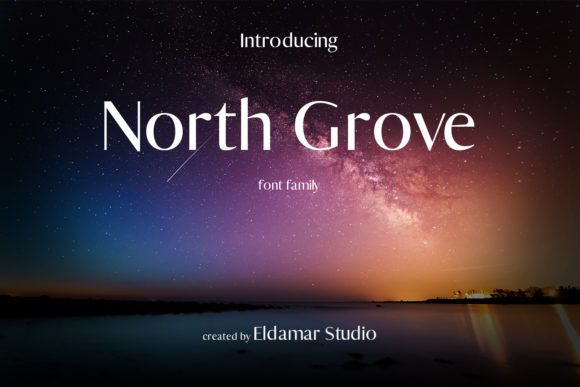
Introducing North Grove Font: The Epitome of Minimalistic Design
Adorn your creative visions with the North Grove Font, a sans serif masterpiece crafted by DmDesignsStoreArt. With its clean lines, slender strokes, and smooth curves, North Grove exudes an air of sophistication and minimalism that's sure to captivate your audience.
Step into a world of sleek aesthetics and understated elegance as you unveil the beauty of North Grove. Its delicate structure and airy feel lend a sense of lightness and grace to every design it touches. Whether you're creating a minimalist logo, a captivating social media post, or an eye-catching website, North Grove is your perfect companion.
Unlock a Universe of Creative Possibilities
With North Grove at your fingertips, you'll unlock a boundless realm of creative possibilities. Let your imagination soar as you explore the endless applications of this versatile font. From branding and marketing materials to web design and social media graphics, North Grove seamlessly adapts to your every need.
Harness the power of North Grove to craft logos that command attention, headlines that resonate, and body text that captivates. Its clean and legible design ensures effortless readability across various platforms, making it the ideal choice for both print and digital projects.
Tailored for Minimalist Design Aficionados
North Grove is a minimalist's dream come true. Its understated charm and refined simplicity make it the perfect choice for those who appreciate the beauty of clean lines and uncluttered spaces. Whether you're designing a sleek business card, an elegant invitation, or a captivating poster, North Grove will elevate your vision to new heights.
Its remarkable versatility extends to a wide range of design styles, from modern and contemporary to vintage and retro. North Grove effortlessly blends with other design elements, allowing you to create cohesive and visually stunning compositions.
Experience the North Grove Difference
North Grove is more than just a font; it's a gateway to a world of creative expression. Its delicate beauty and minimalist aesthetic will transform your designs, captivating your audience with their understated elegance.
Don't settle for ordinary fonts that blend into the background. Embrace the power of North Grove and watch your creative projects blossom into works of art. Let your designs speak volumes with the North Grove Font, the epitome of minimalist design.